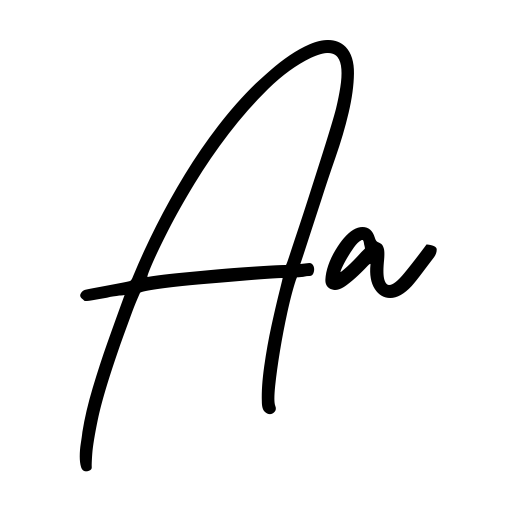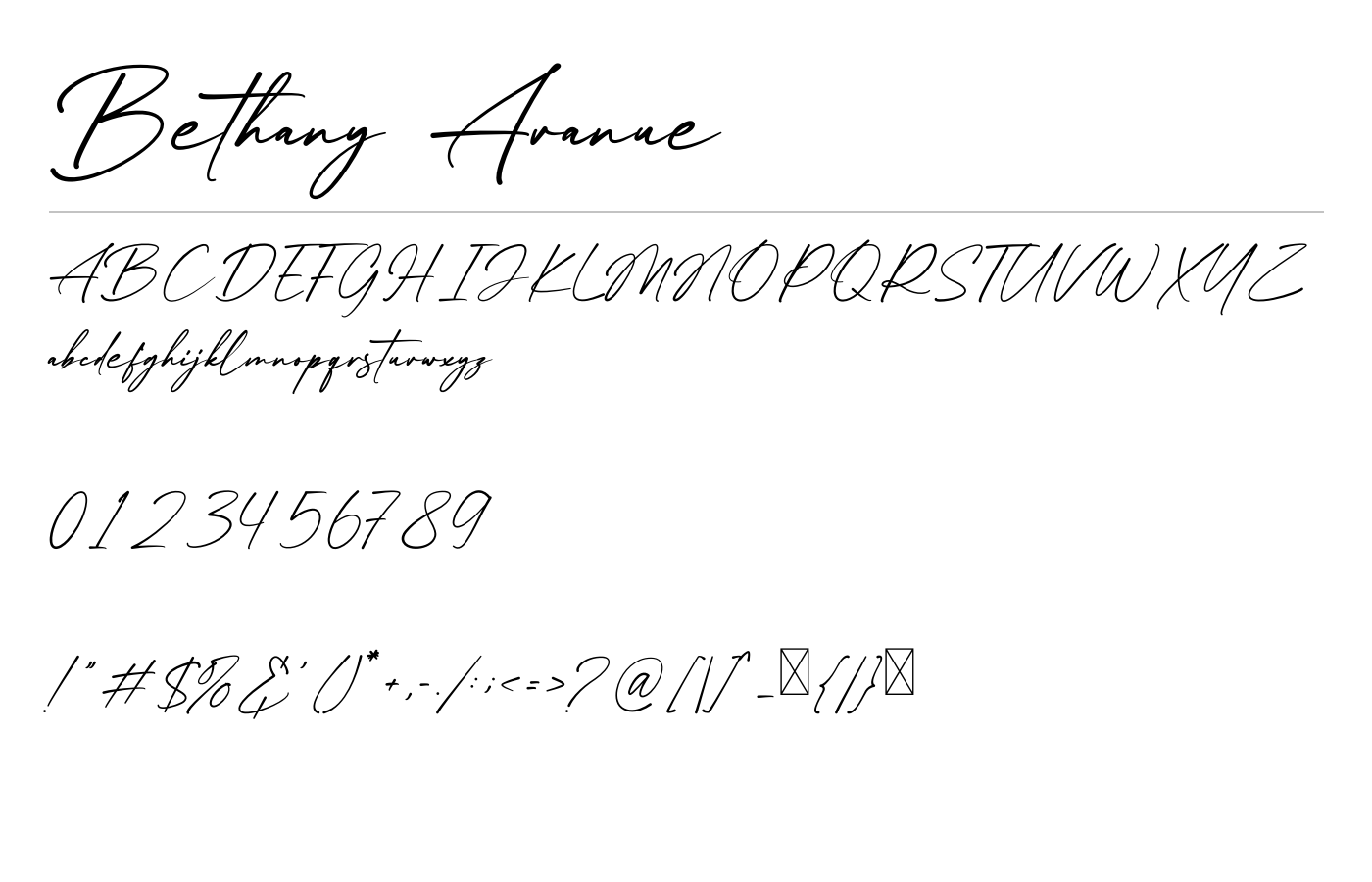
Bethany Avanue is a delicate, modern script font characterized by elegant, flowing letterforms with a natural, handwritten feel. Its thin strokes and subtle curves create a graceful, airy appearance, perfect for adding a personal, sophisticated touch to branding, invitations, and stylish editorial designs. This font works best in contexts where elegance and refinement are desired, bringing warmth and charm to creative projects.
Bethany Avanue Font
About Bethany Avanue Font
| Font family | Bethany Avanue Font |